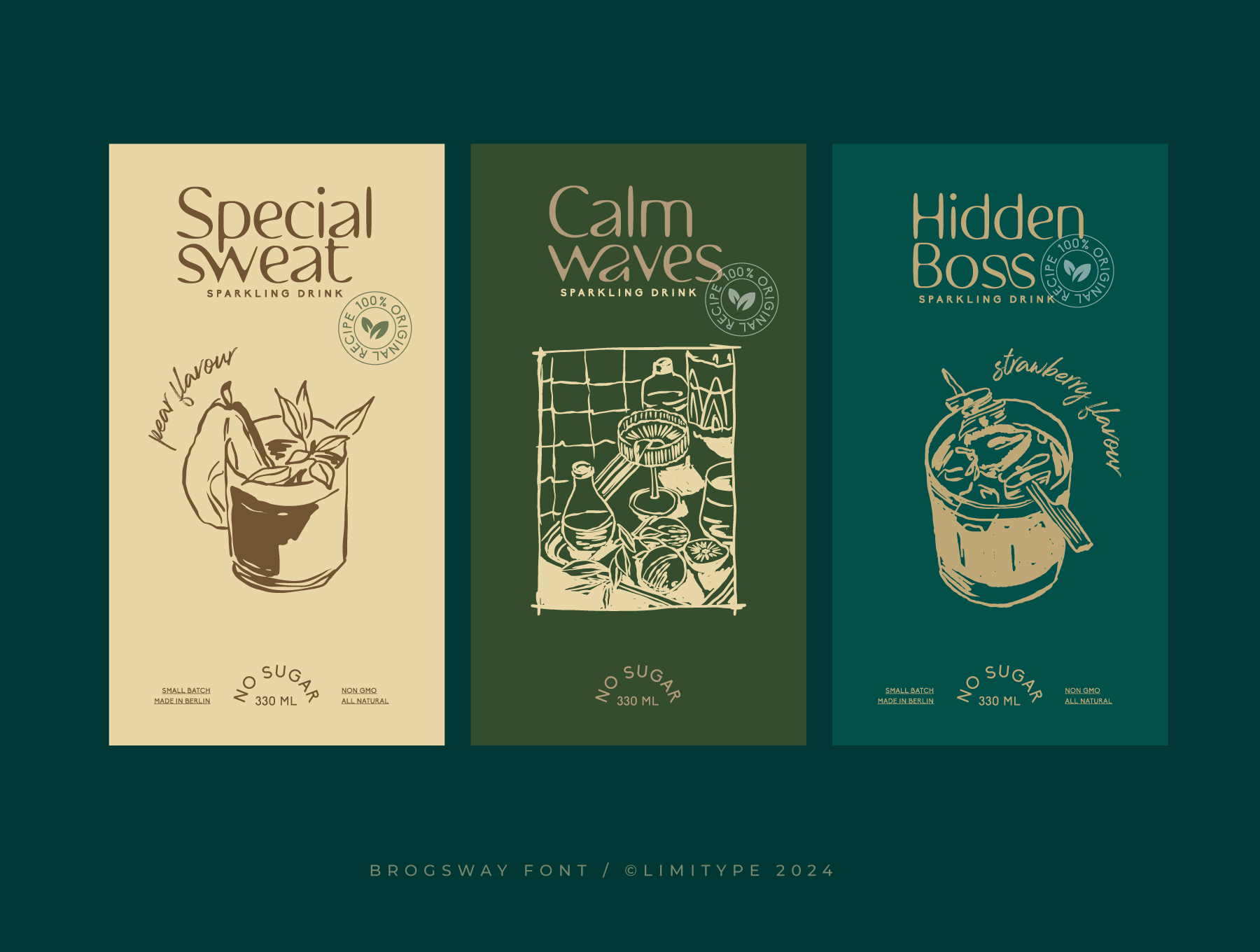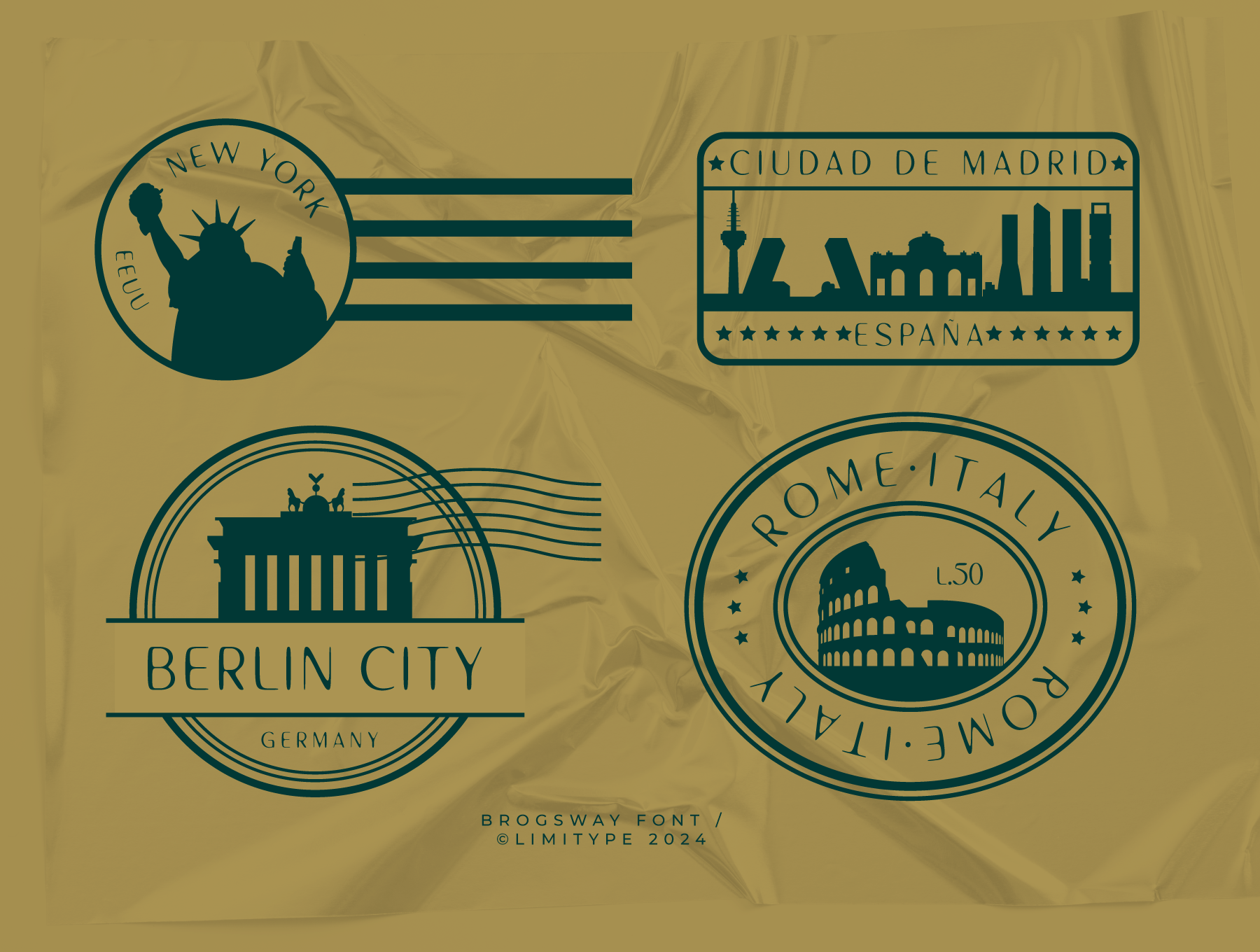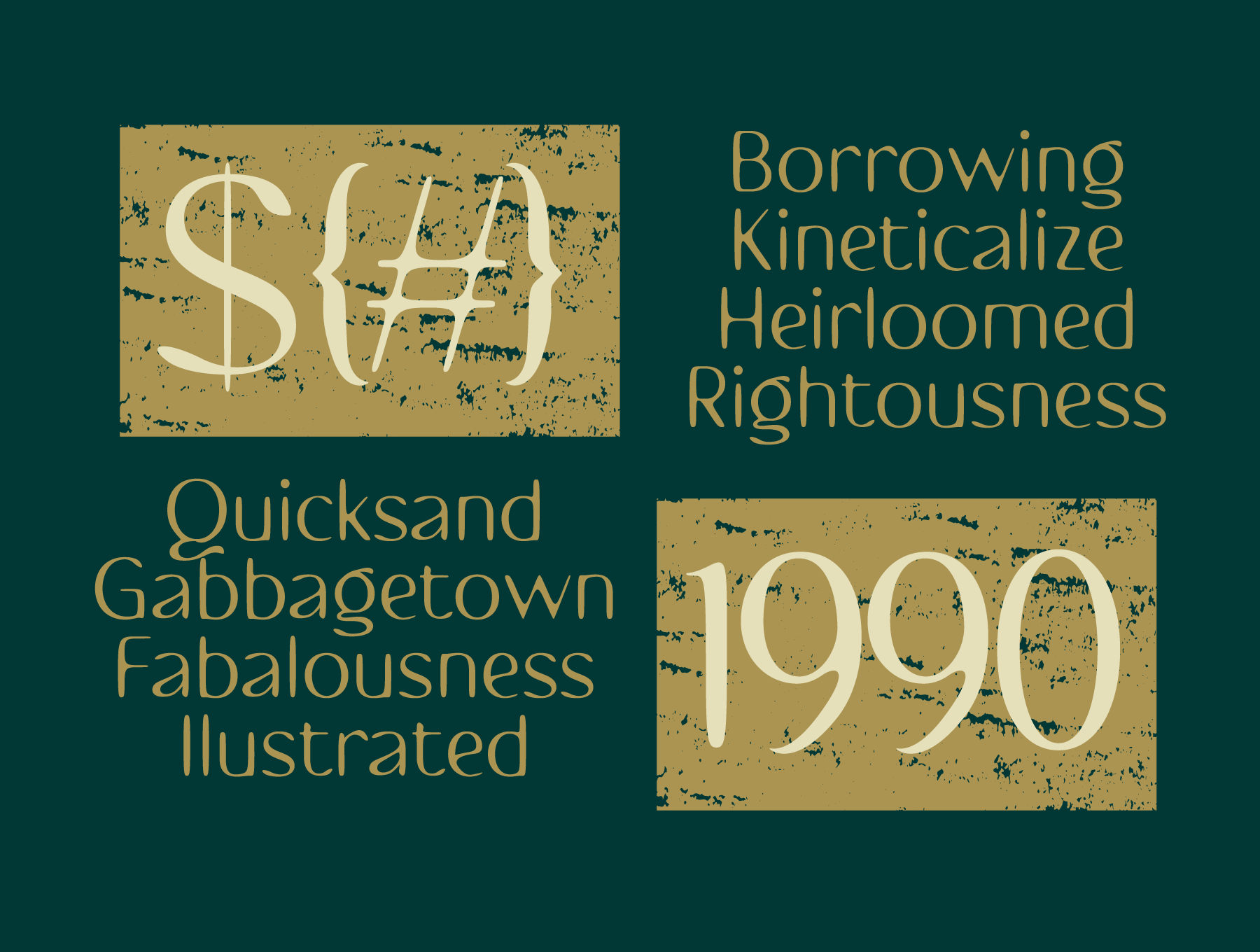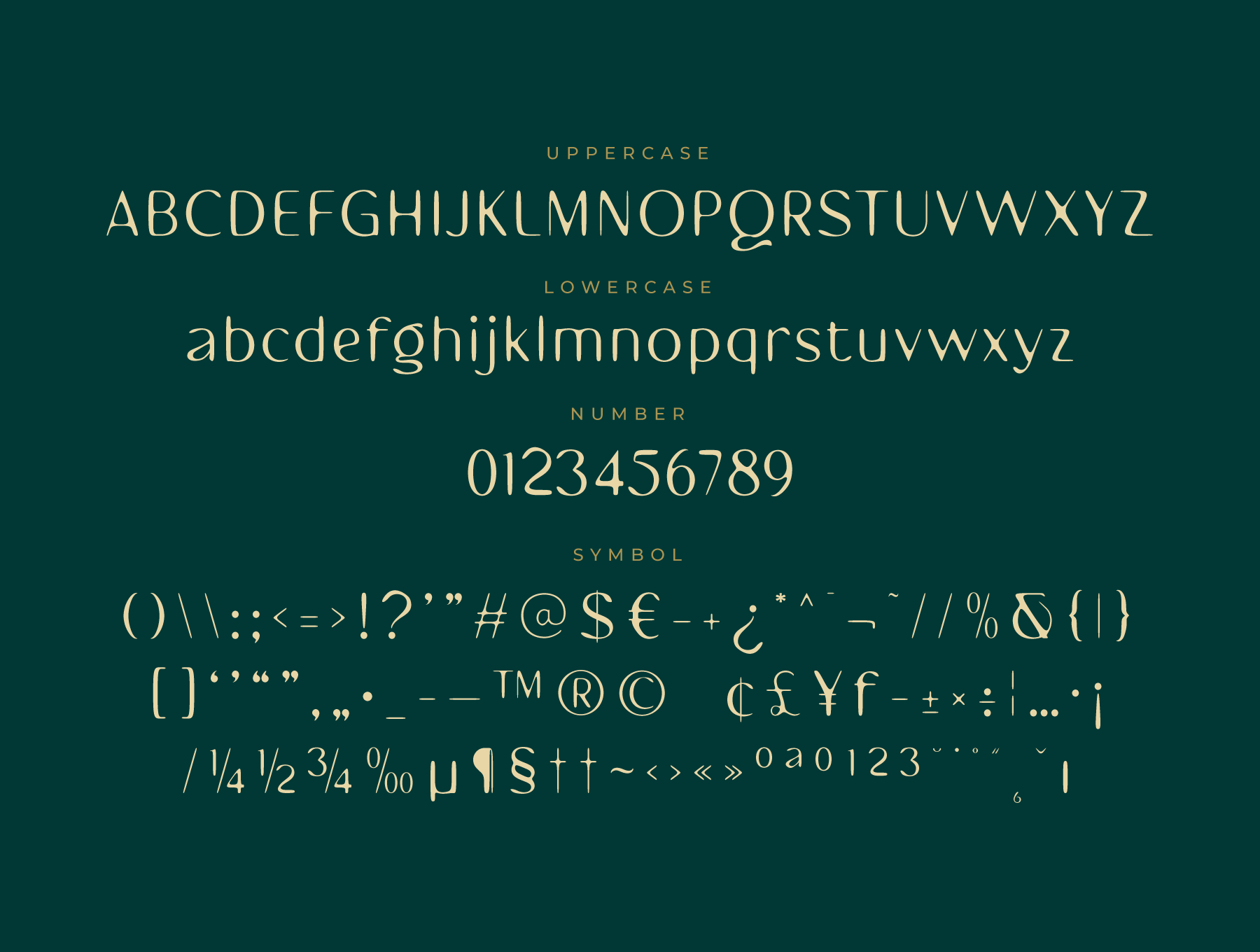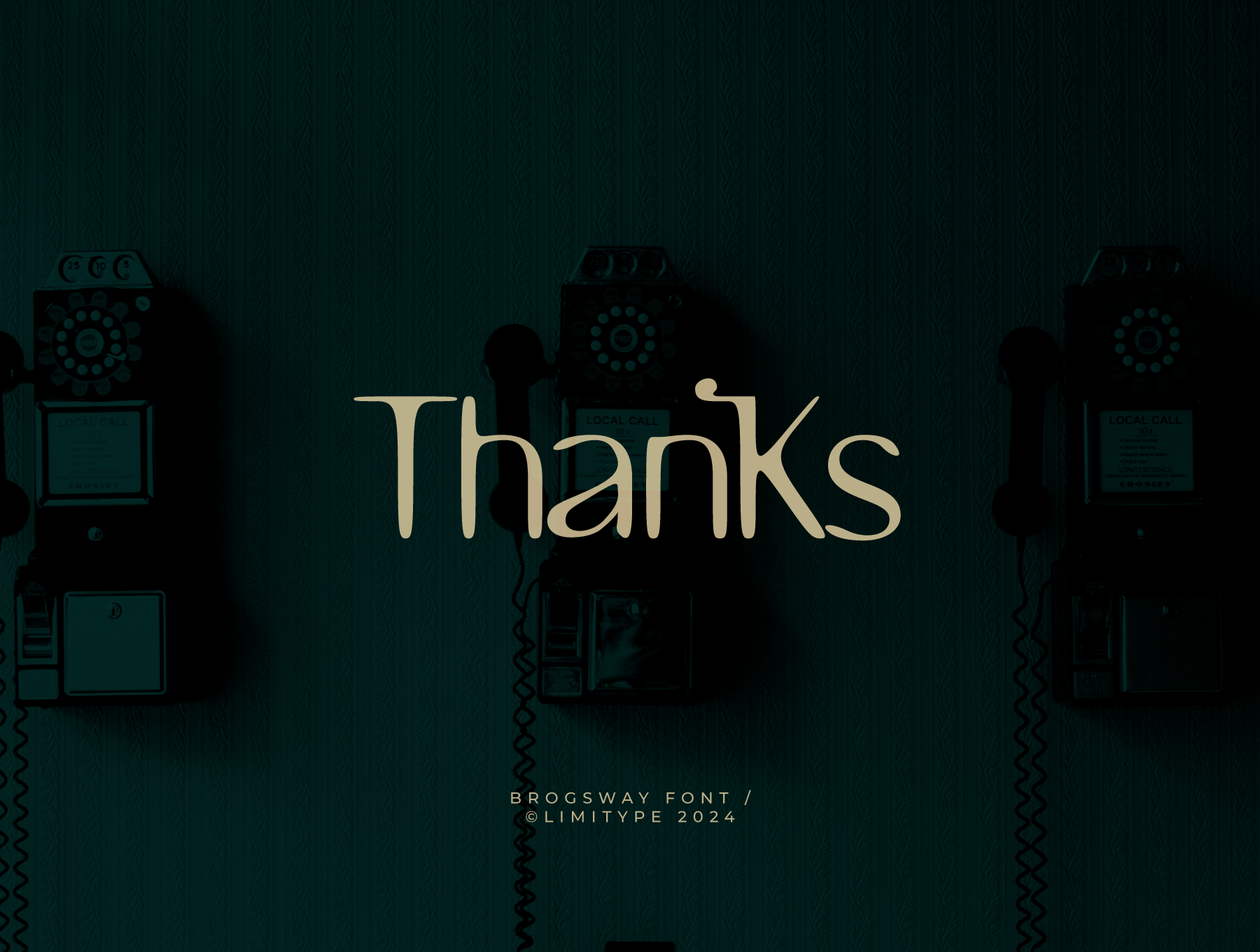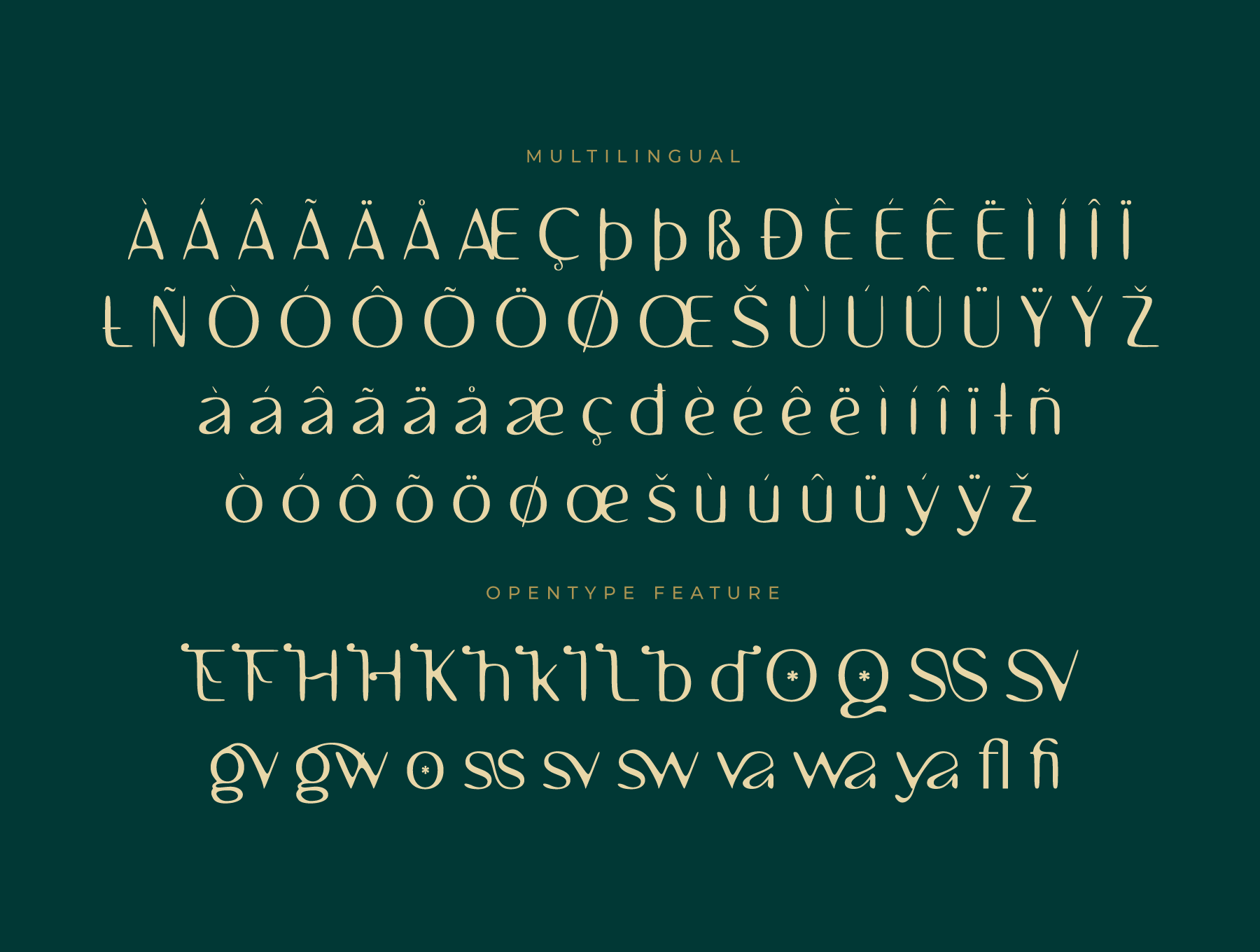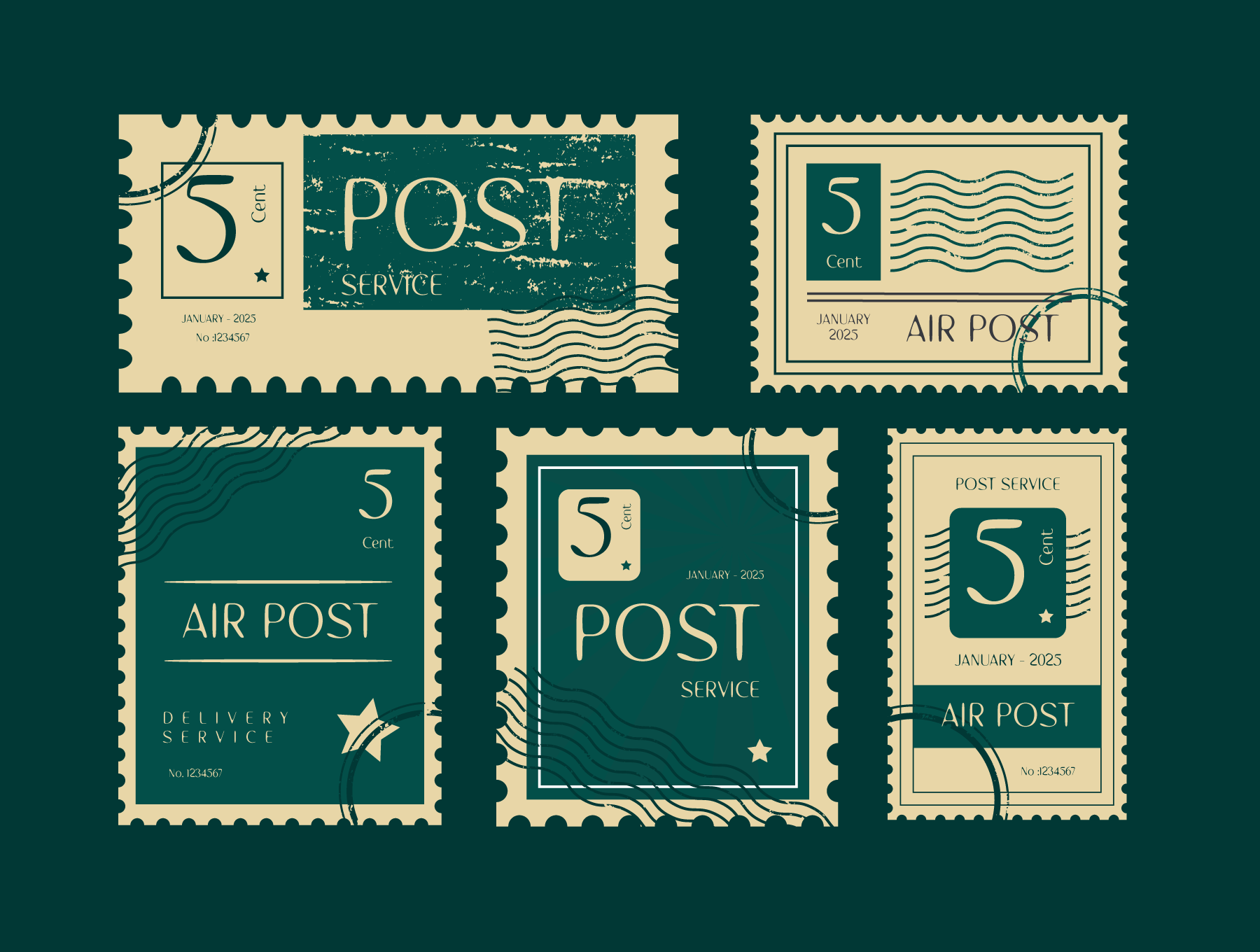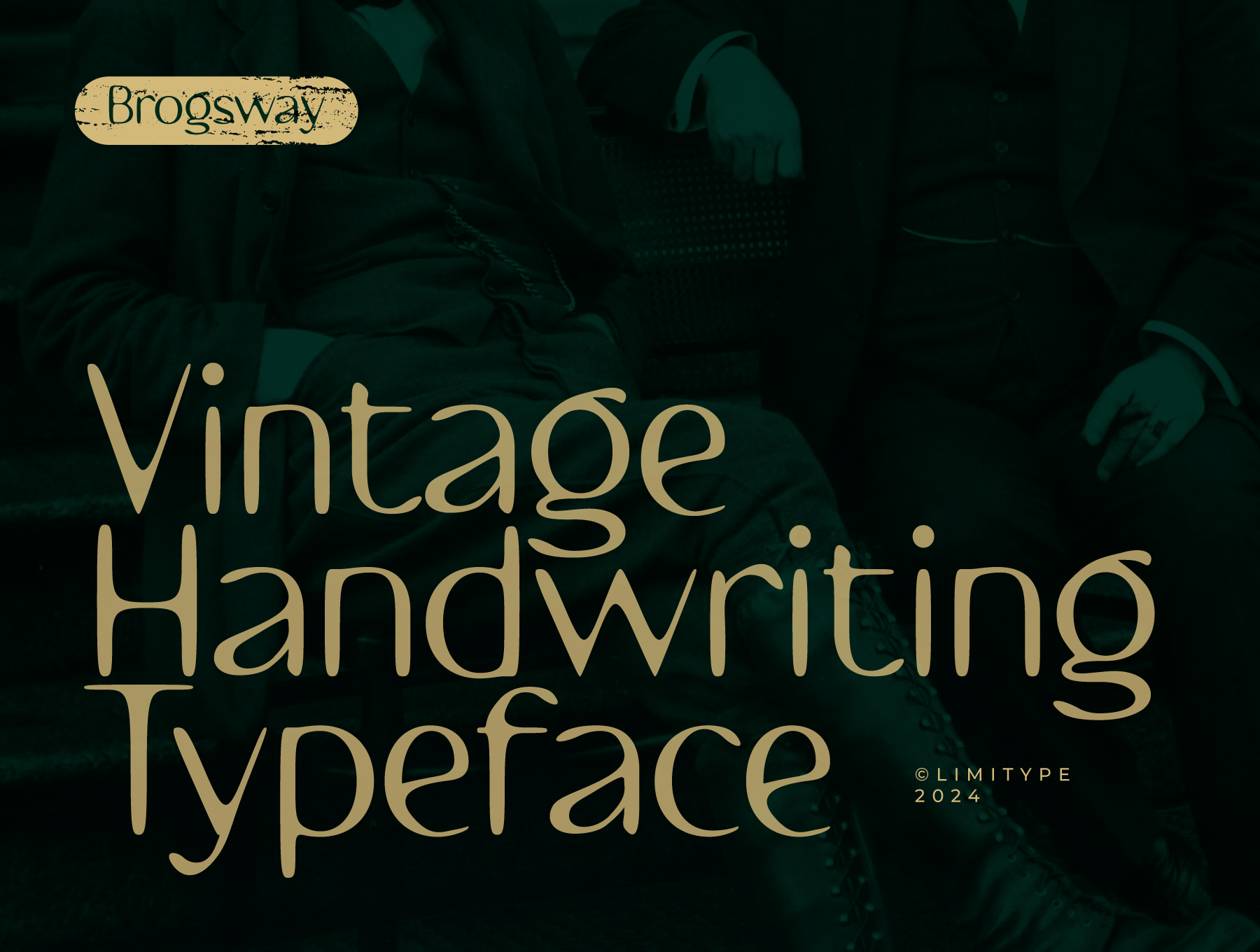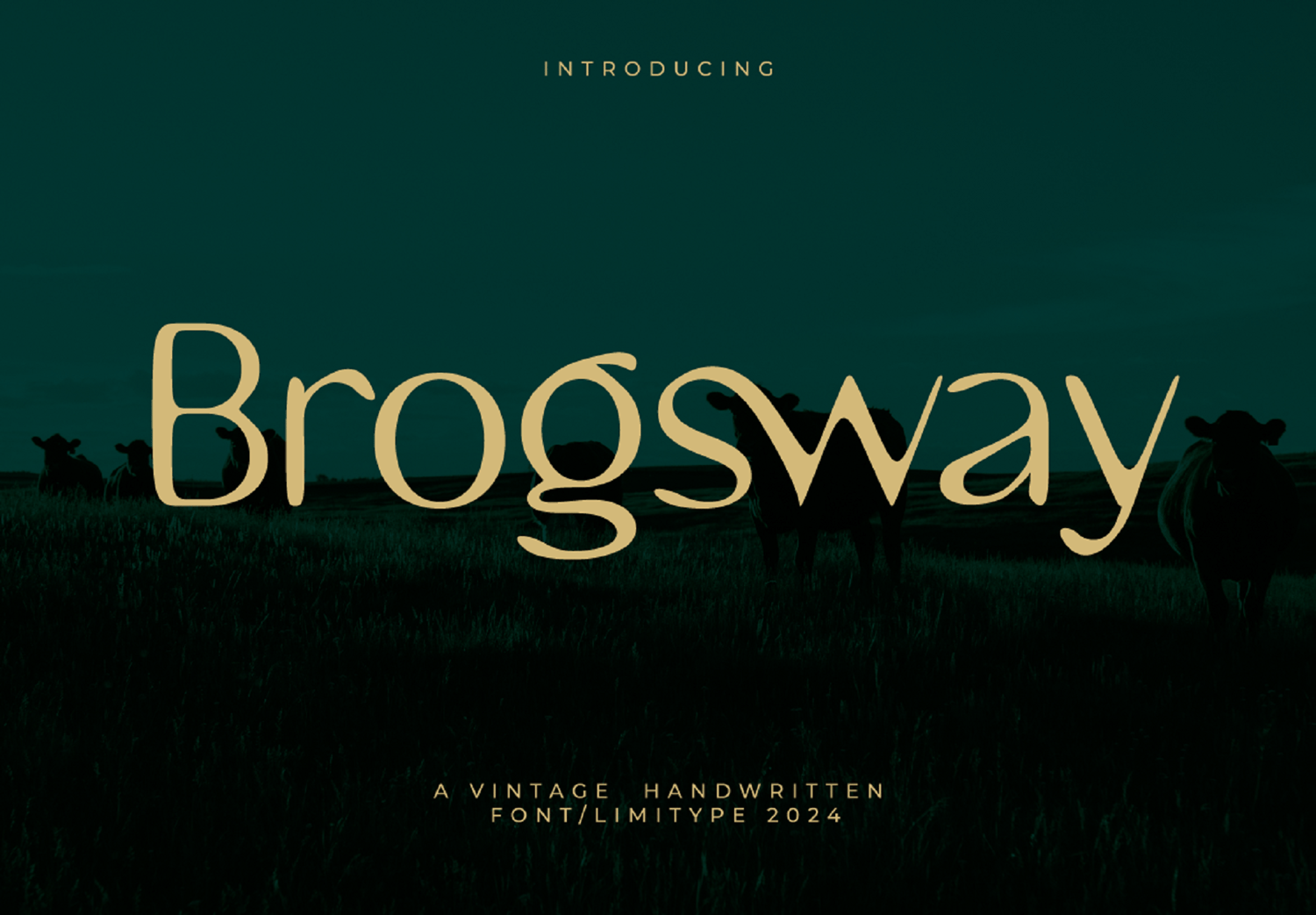
Brogsway - Vintage Handwritten Font
Brogsway is a vintage font with a unique handwriting style suitable for your designs that require an elegant and luxurious touch with a minimalist impression. Brogsway is equipped with uppercase, lowercase, numbers, symbols, alternates and ligatures